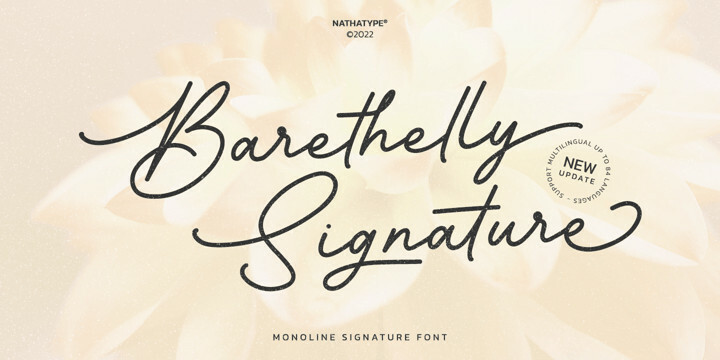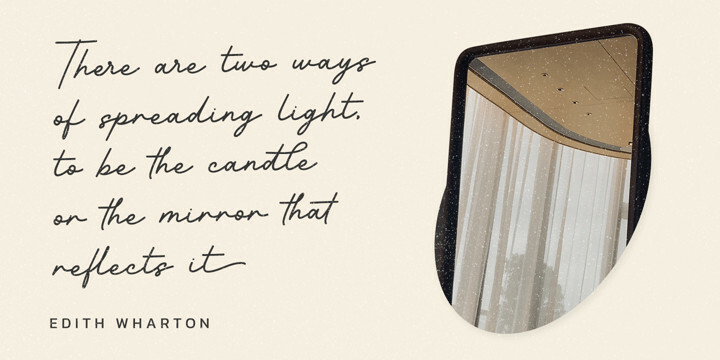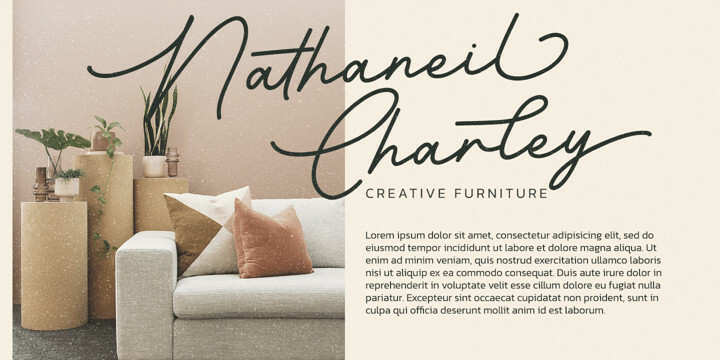
Barethelly Signature Font
Barethelly Signature FontBarethellly signature is a font designed with actual handwriting. This font generates clean, elegant and trustworthy appearance. As our commitment to support your brand globally recognized, we always come with multilingual options.